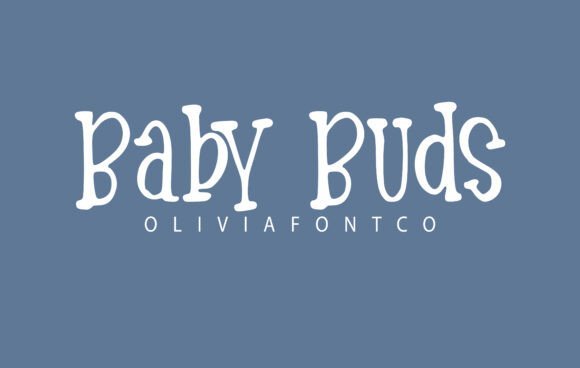
The Perfect Blend of Romance and Creativity: Baby Buds Font
Have you ever found yourself scribbling down a brilliant idea in a notebook, only to realize that it’s the perfect moment to bring it to life? The spark of creativity is a magical thing, and for designers, it’s what drives us to create something truly special. And that’s exactly where the Baby Buds Font comes in – a beautiful, handwritten font that captures the essence of romance and whimsy.
Expertly designed to elevate your creative ideas, the Baby Buds Font is a valuable tool for any designer looking to add a touch of elegance and sophistication to their work. Whether you’re crafting a magazine headline, social media post, or wedding invitation, this font is sure to leave a lasting impression. Its legibility and versatility make it a go-to choice for designers who demand the best.
Baby Buds Font Key Features
- Unique Characteristics: Baby Buds Font features a unique blend of whimsical and playful elements, with intricate details and textures that evoke a sense of nursery charm.
Baby Buds Font Review
Overall, I’d say Baby Buds Font is a charming addition to any digital design project. The whimsical nature of the font is perfect for designs targeting a younger audience or for creating a playful atmosphere.
The font’s ✨ versatility in terms of pairing with other fonts is impressive. It works well in both bold and light versions, allowing designers to create visually appealing contrast and balance.
Some of the standout features of Baby Buds Font include:
- Its ✨ expressive nature, making it ideal for headings and titles.
- Its ✨ readability, even at smaller font sizes, making it suitable for body text.
- Its ✨ customization options, including ligatures and swashes, which add a touch of personality to the font.
- ⚠️ The font may not be as effective in more formal or professional contexts, as its playful nature may come across as unprofessional.
- ⚠️ The font’s lack of a complete character set may limit its use in certain languages or applications.
Overall, Baby Buds Font is a fun and versatile font that can add a touch of personality to your designs. While it may not be suitable for all projects, it’s definitely worth considering for designs targeting a younger audience or creating a playful atmosphere.
Use the Baby Buds font to create a playful and whimsical design. Pair it with bold colors and fun graphics for a unique look.
Use the Baby Buds font for:
Children’s products and packaging
Baby and parenting-themed designs
Playful and whimsical branding
Alternatives to Baby Buds Font
Pacifico is a beautiful, elegant script font that is perfect for creating a soothing and calming atmosphere. It is ideal for use in branding, advertising, and editorial design where a touch of sophistication is needed.
Compared to Baby Buds Font, Pacifico has a more refined and polished look, making it suitable for a wider range of design applications.
Carolyna Pro is a modern script font that is designed for use in high-end branding, advertising, and editorial design. It features a elegant and refined look that is perfect for creating a luxurious and sophisticated atmosphere.
Compared to Baby Buds Font, Carolyna Pro has a more contemporary and modern look, making it ideal for designers who want to create a fresh and exciting look.
Great Vibes is a beautiful, elegant script font that is perfect for creating a fun and playful atmosphere. It is ideal for use in branding, advertising, and editorial design where a touch of whimsy is needed.
Compared to Baby Buds Font, Great Vibes has a more relaxed and casual look, making it suitable for use in a wide range of design applications.